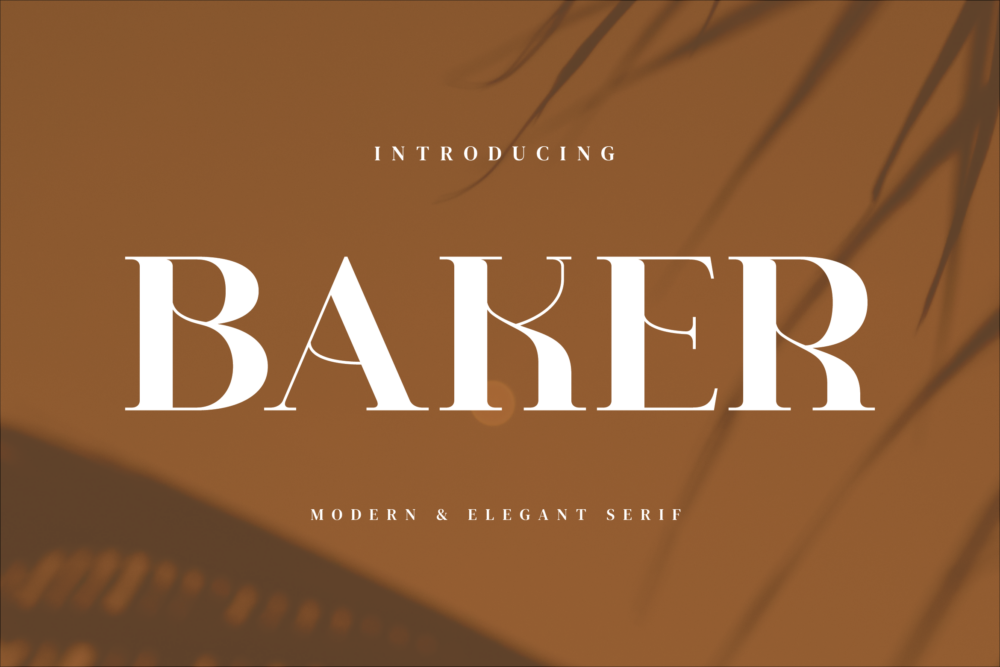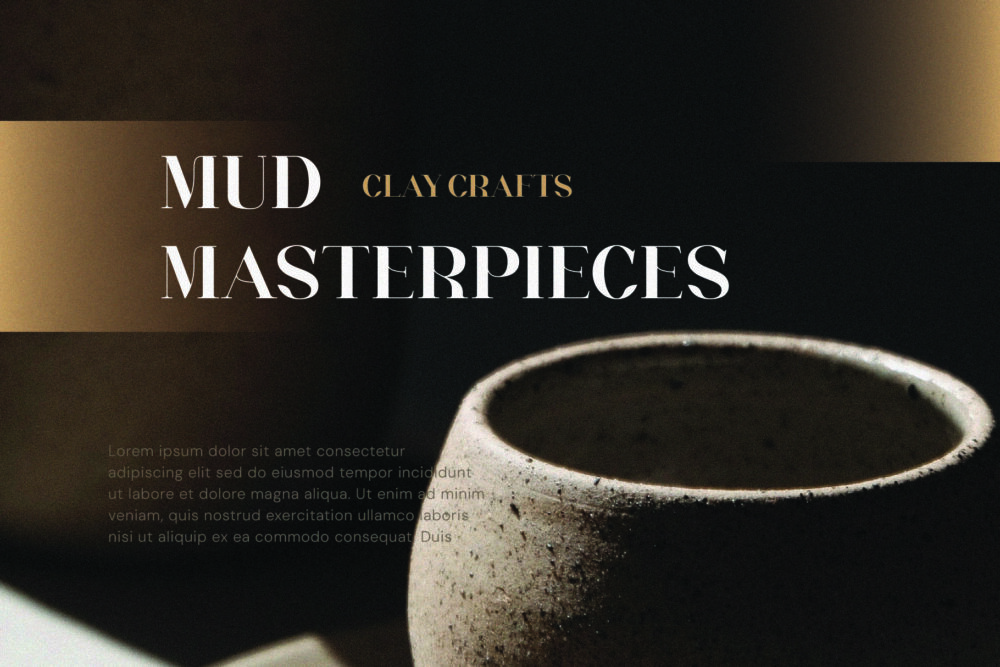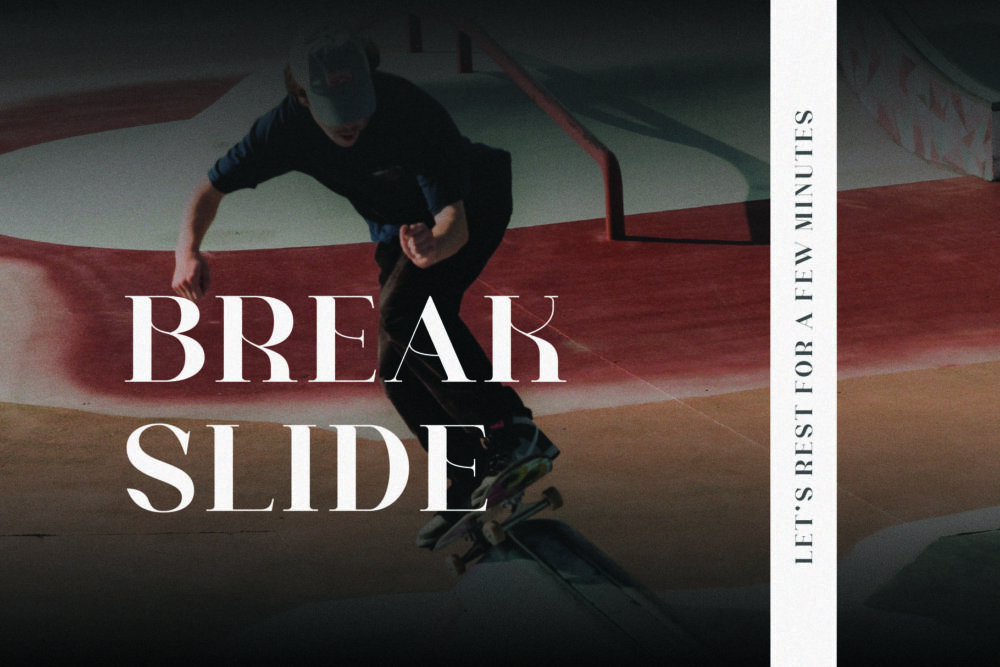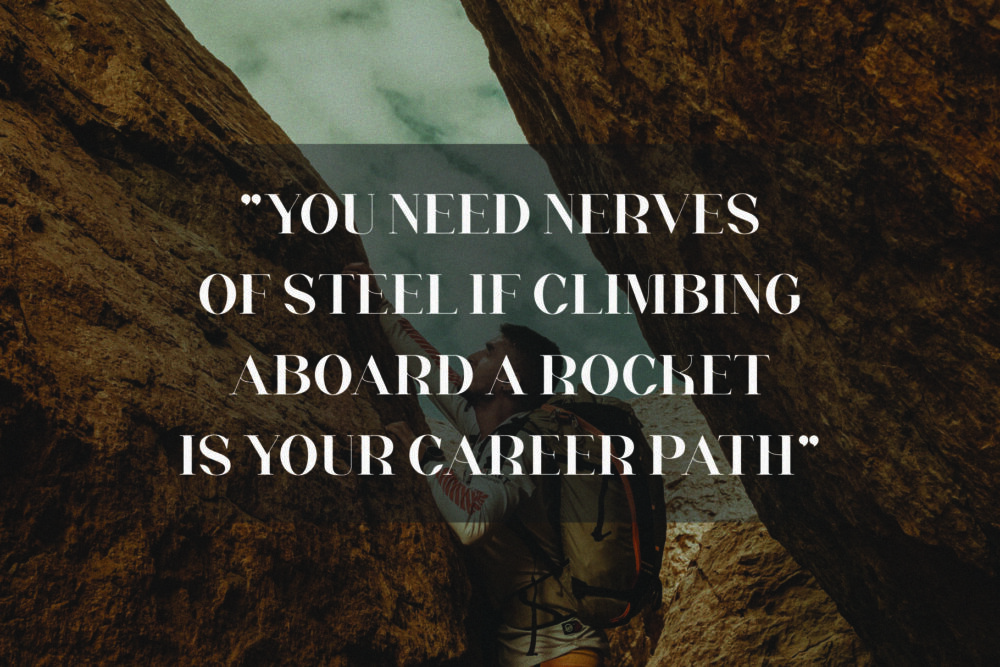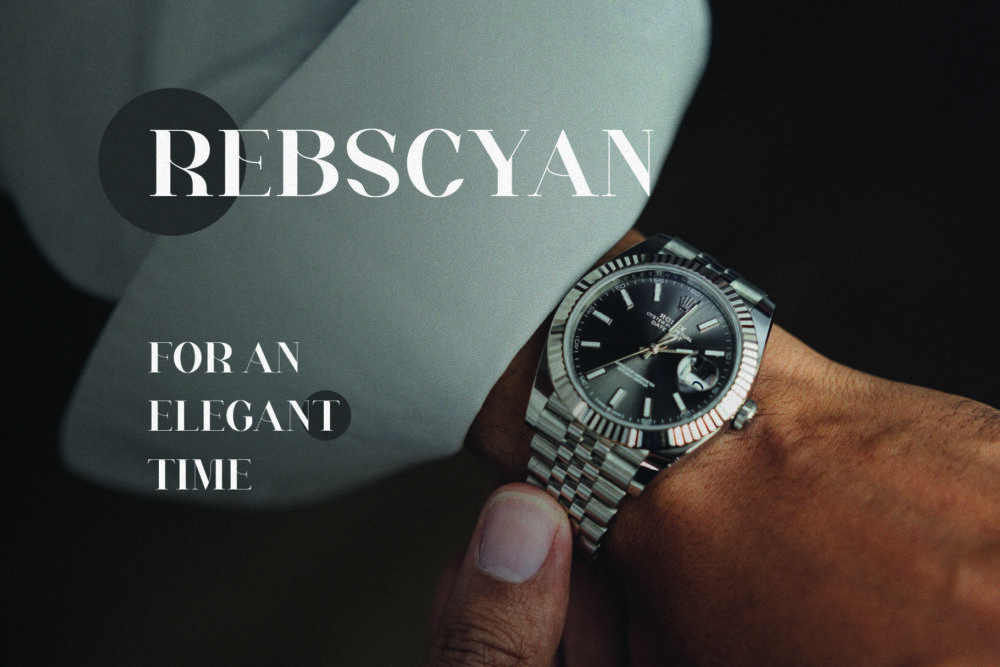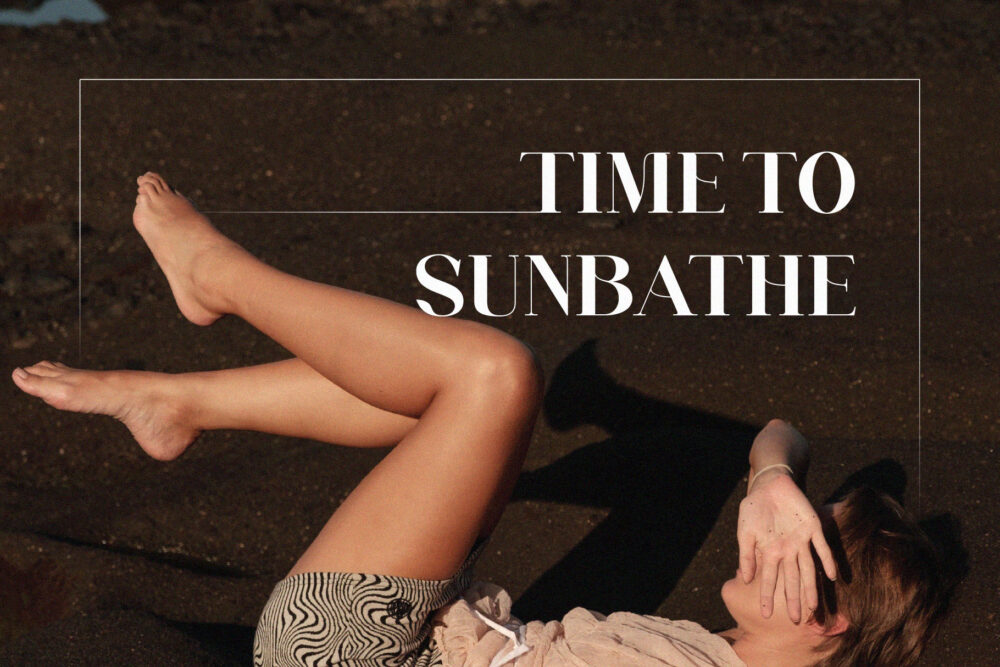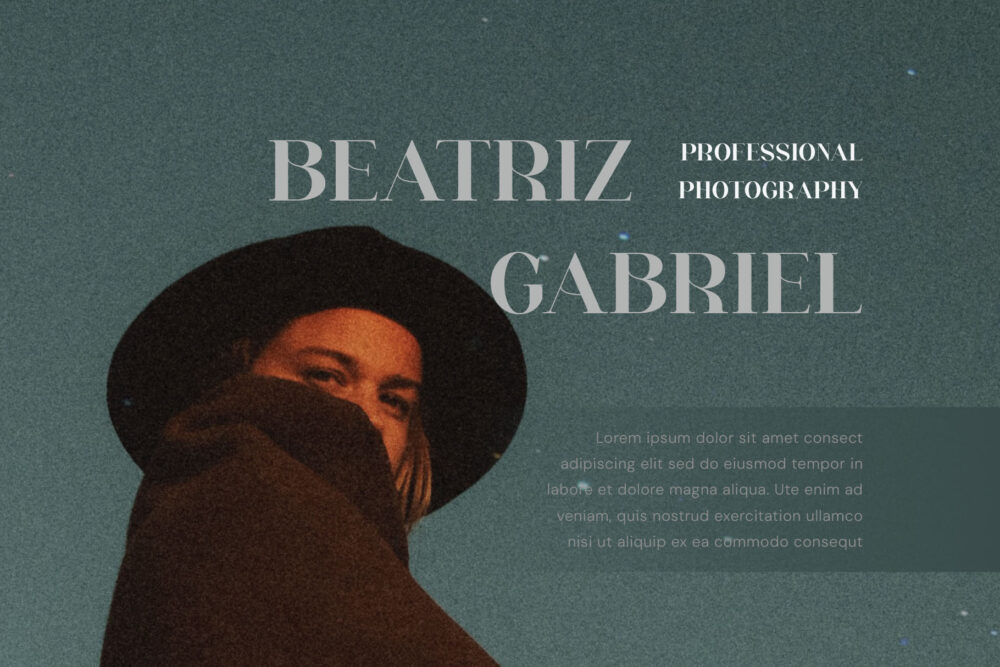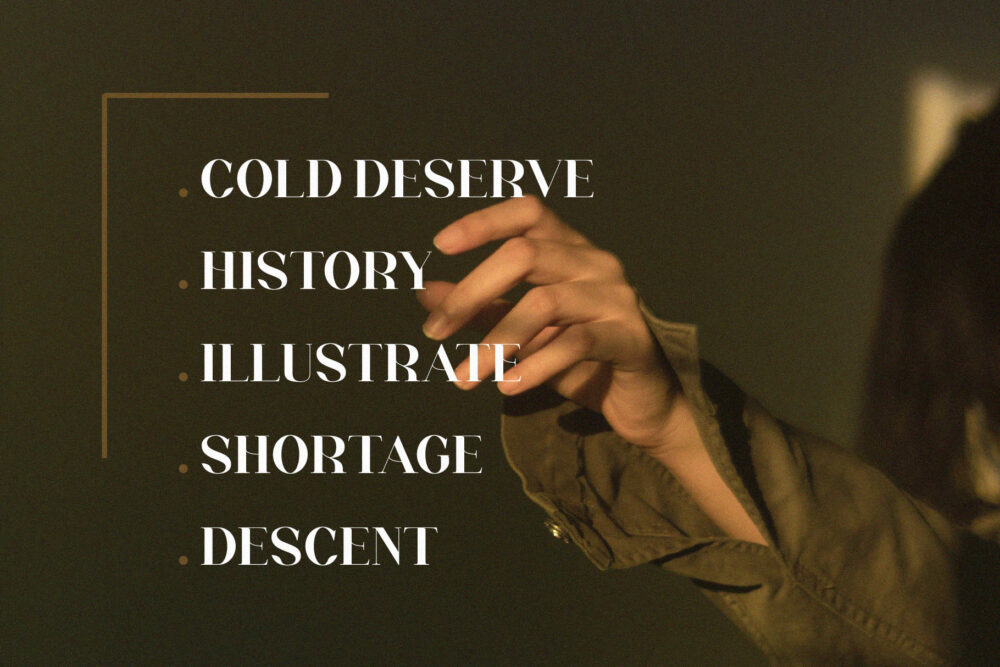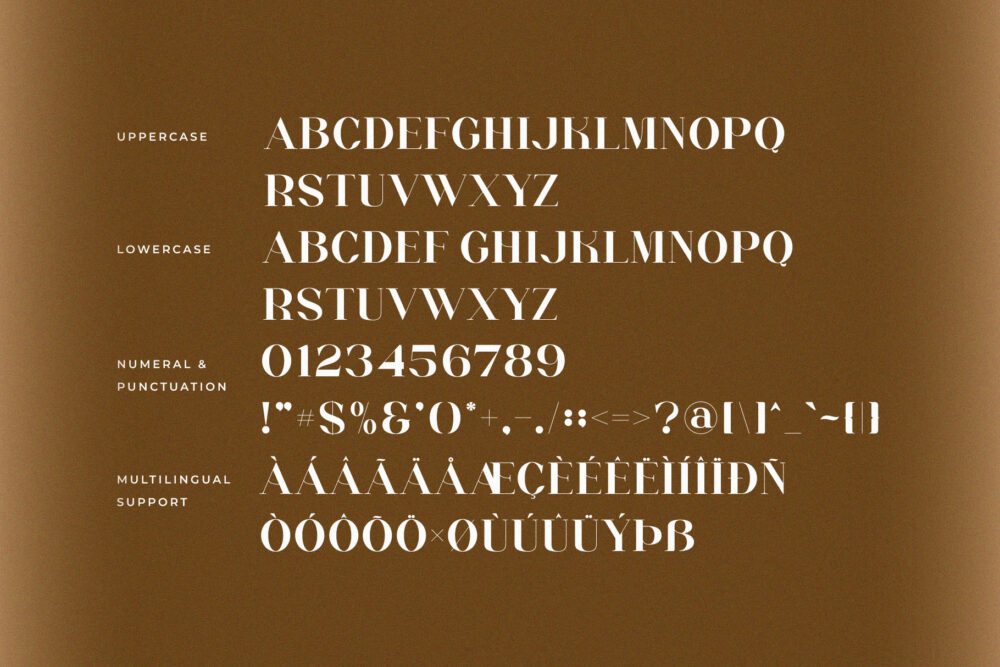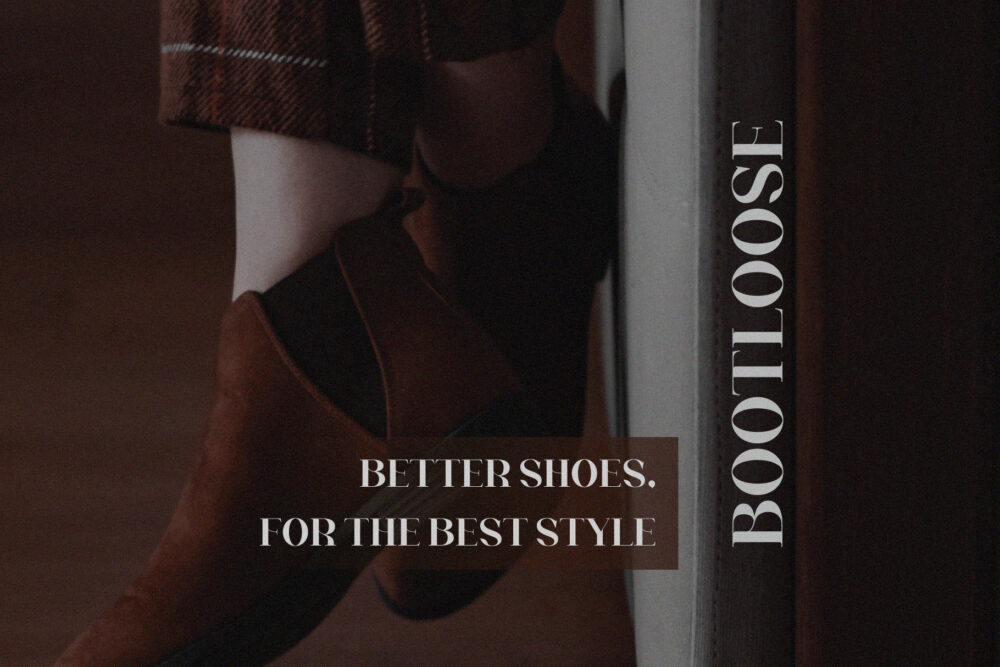
Baker Stylish Serif Typeface, inspired by the famous minimalist logo perfect for the purposes of designing templates, brochures, videos, advertising branding, logos and more.